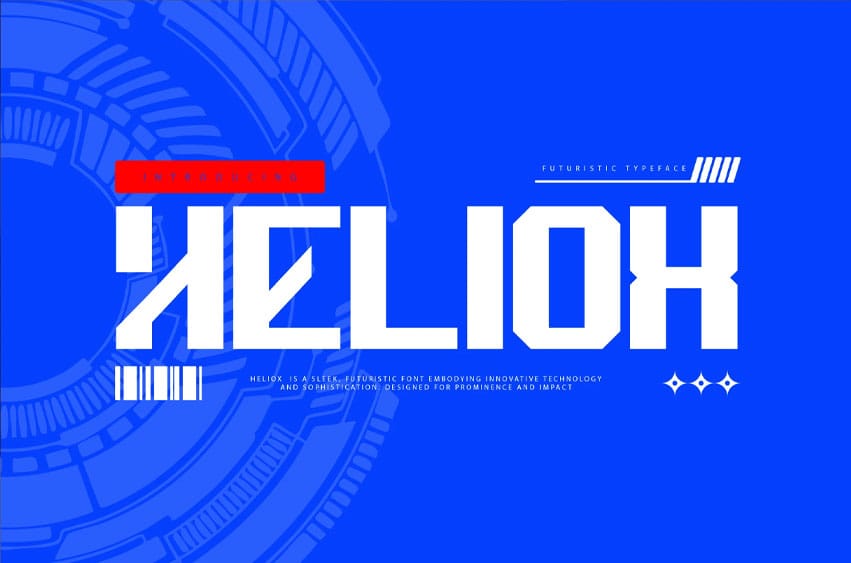
Heliox Font is a futuristic font designed to embody the essence of innovation and modernity.
With its sleek, sharp lines and geometric shapes, it creates a bold, cutting-edge aesthetic perfect for technology, science fiction, and digital media.